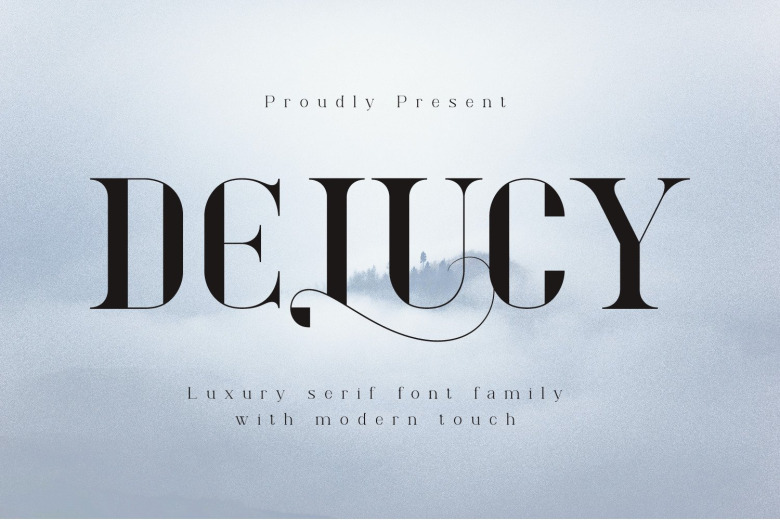
Delucy Font
Delucy is a luxurious and unique serif font. This font is PUA encoded which means you can access all of the glyphs and swashes with ease! Fall in love with Delucy’s versatile style and use it to create spectacular designs!